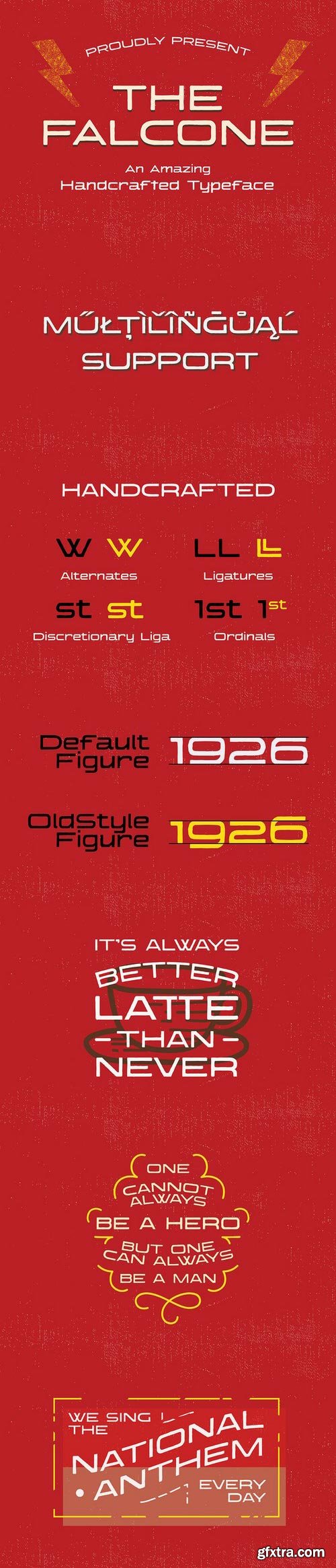
CM - The Falcone Handcrafted Typeface 604705
The Falcone is an Expanded vintage Handccrafted typeface Designed to suit every vintage themed designs. such as Logo, Packaging, Tshirts, Quote, Invitation, and many more.